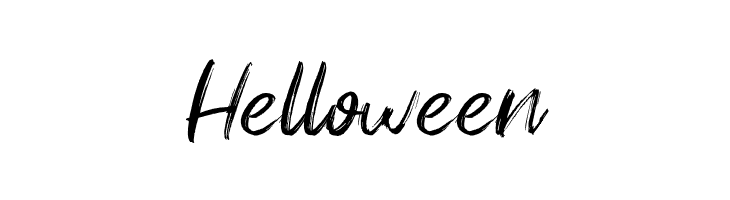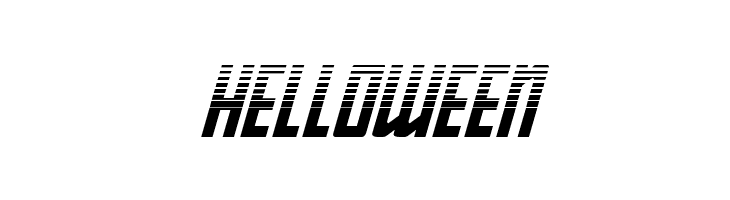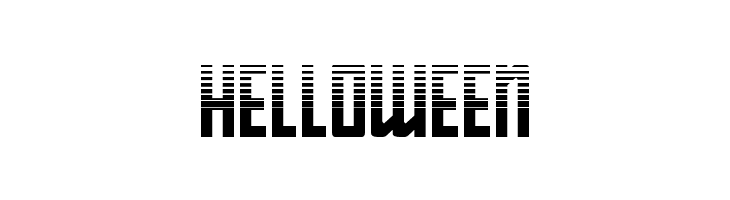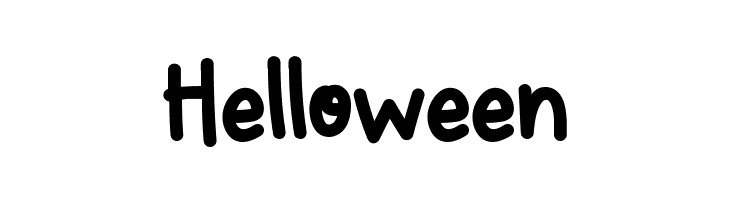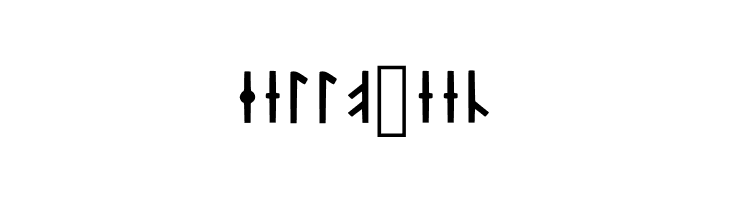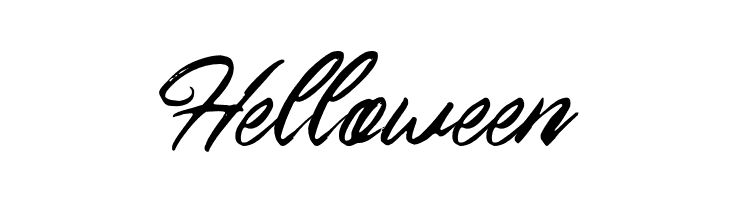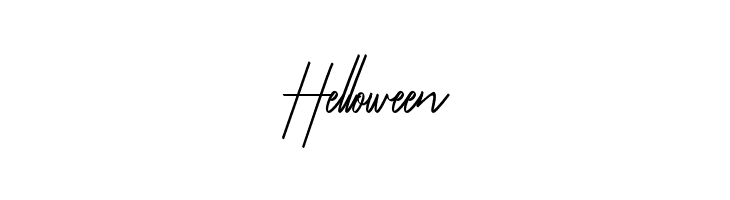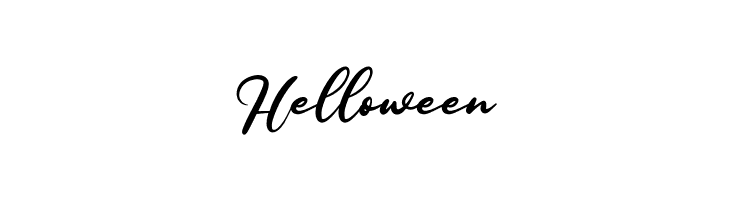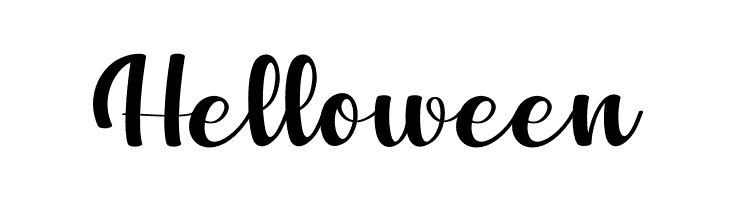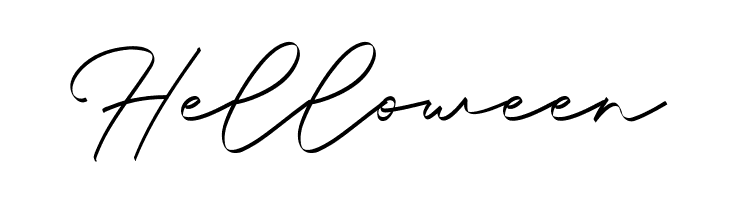
A bold, geometric font with a modern and impactful style.
A bold, geometric font with a two-tone striped design.
A bold, two-tone italic font with a modern and dynamic style.
A sophisticated script font with fluid, cursive strokes and elegant curves.
A dynamic, brush-style font with bold, expressive strokes.
A bold, brush-style font with dynamic and expressive strokes.
A bold, geometric font with modern and edgy characteristics.
A lively, handwritten script font with fluid, connected strokes.
A bold, hand-painted style font with dynamic, energetic strokes.
A lively and flowing cursive font with elegant connections and playful lowercase letters.
A dynamic, brush-style font with bold, expressive strokes.
A bold, brush-style font with dynamic, hand-drawn strokes.
A bold, brush-style font with dynamic, slanted strokes and a casual, energetic feel.
A bold, expressive script font with a dynamic, handwritten style.
A bold, expressive script font with a dynamic, hand-drawn style.
A bold, geometric font inspired by ancient runic alphabets.
A bold, geometric font inspired by the ancient Younger Futhark runes.
A flowing, cursive font with elegant, interconnected letters and moderate stroke contrast.
A cursive, handwritten font with elegant, flowing lines.
Cartoonish, music-themed decorative font with illustrated characters.
An elegant and flowing script font with ornate and decorative letterforms.
Cartoonish, music-themed illustrative display font.
A modern, handwritten font with elegant, flowing characters.
A modern, handwritten font with elegant, flowing strokes.
A bold, geometric font with a modern and industrial feel.
A bold, geometric font with a three-dimensional effect and sharp, angular lines.
A decorative, geometric font with a 3D, crystal-like design.
A playful, handwritten font with smooth, rounded strokes and a whimsical style.
An elegant script font with intricate swirls and flowing cursive style.
A playful and elegant script font with flowing, cursive design.
A playful, rounded font with smooth curves and a friendly appearance.
A playful, handwritten font with rounded edges and a casual, friendly appearance.
An ornate, medieval-style font with intricate flourishes and a regal theme.
A regal, medieval-inspired font with intricate flourishes and decorative elements.
A playful, rounded font with smooth curves and a friendly appearance.